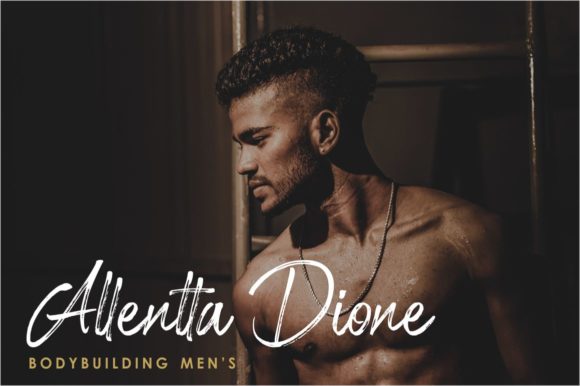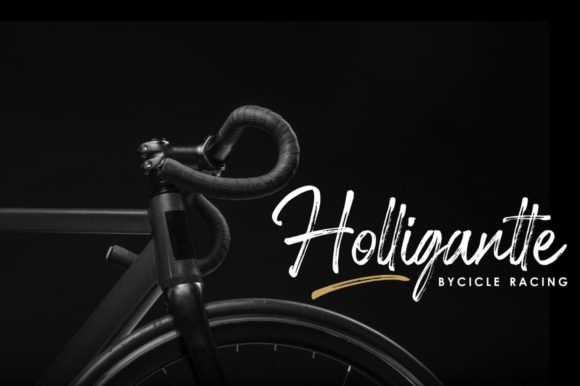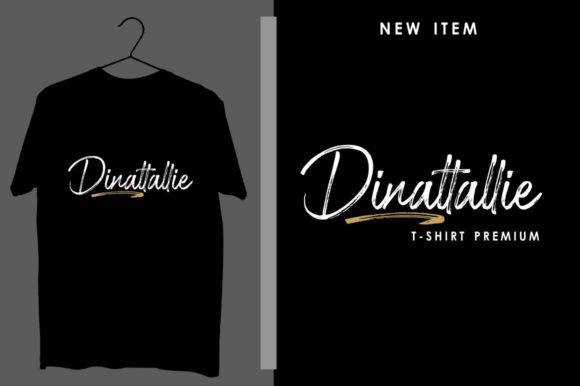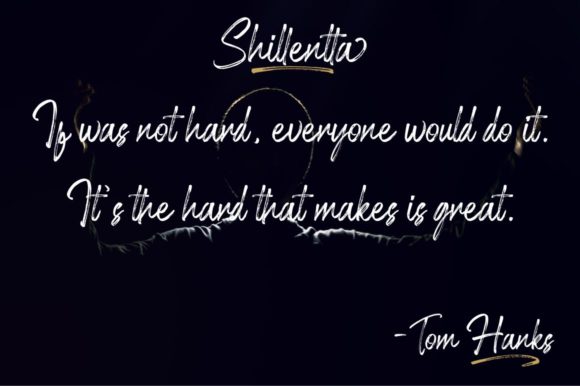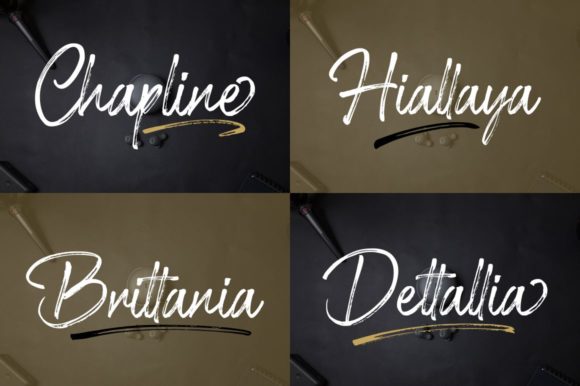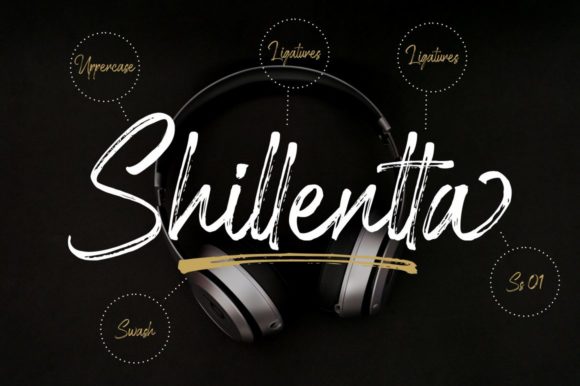
Introduction to Shillentta Font
Shillentta is a strong and dynamic script with unique letters.
Get inspired by its authentic look .
Key Features of Shillentta Font
Why Choose Shillentta Font?
Shillentta Font offers exceptional quality and versatility, making it a valuable addition to your design toolkit. Whether you’re creating for personal projects or commercial use, Shillentta Font delivers professional results.